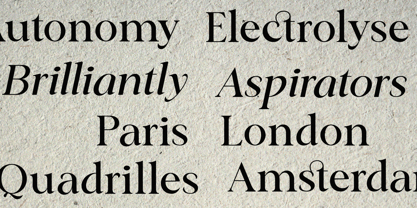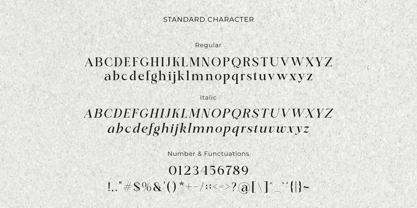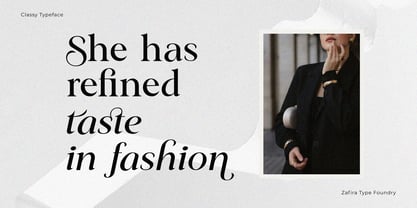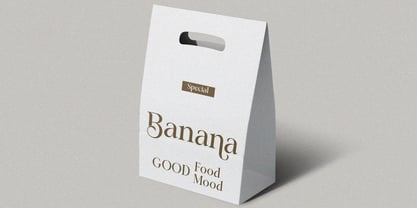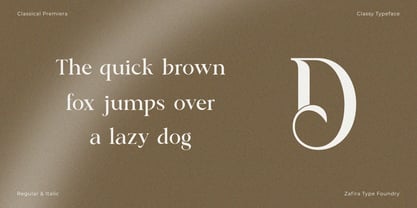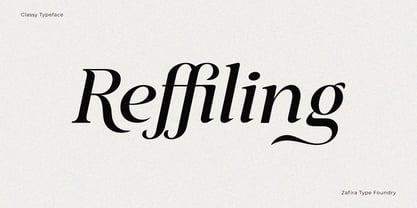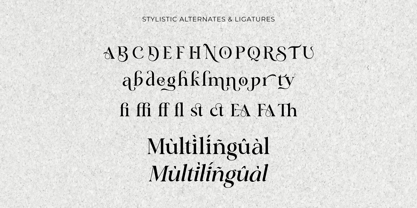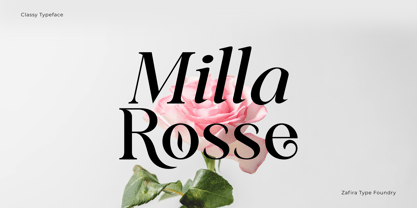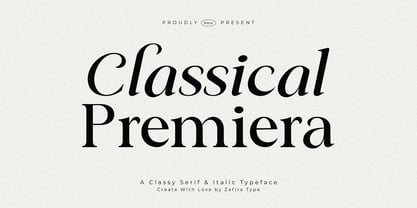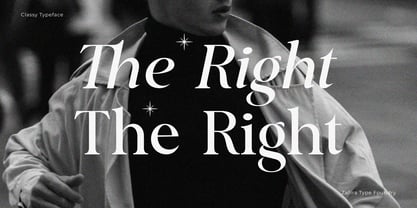
Classical Premiera
by Zafira Type
The Classical Premiera Font Family was designed by Su Hirno and published by Zafira Type. Classical Premiera contains 2 styles and family package options. More about this family
Classical Premiera is an elegant serif font with two styles, Regular and Italic. The Regular style features balanced and bold letterforms, making it ideal for long, formal texts. Meanwhile, the Italic style adds a dynamic and artistic touch, perfect for emphasis or quotes. This font offers a classic and sophisticated vibe, making it perfect for formal and elegant designs.
Designers: Su Hirno
Foundry: Zafira Type